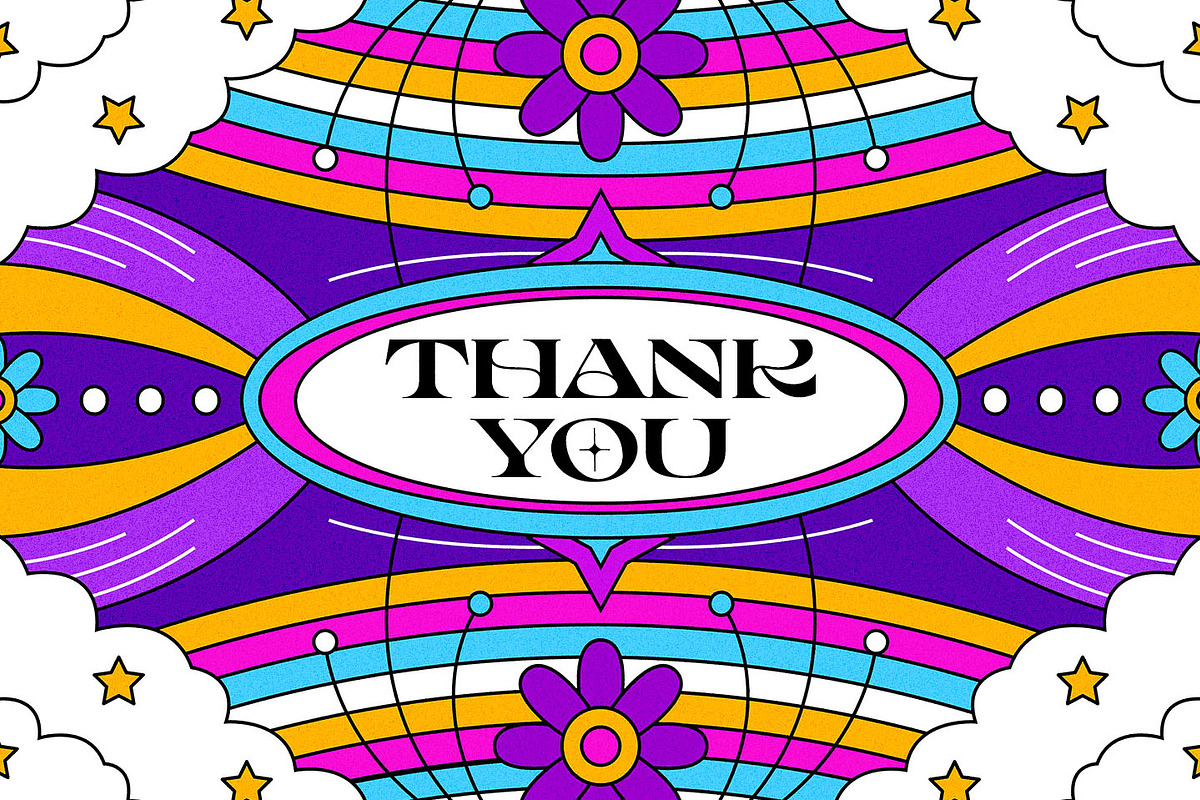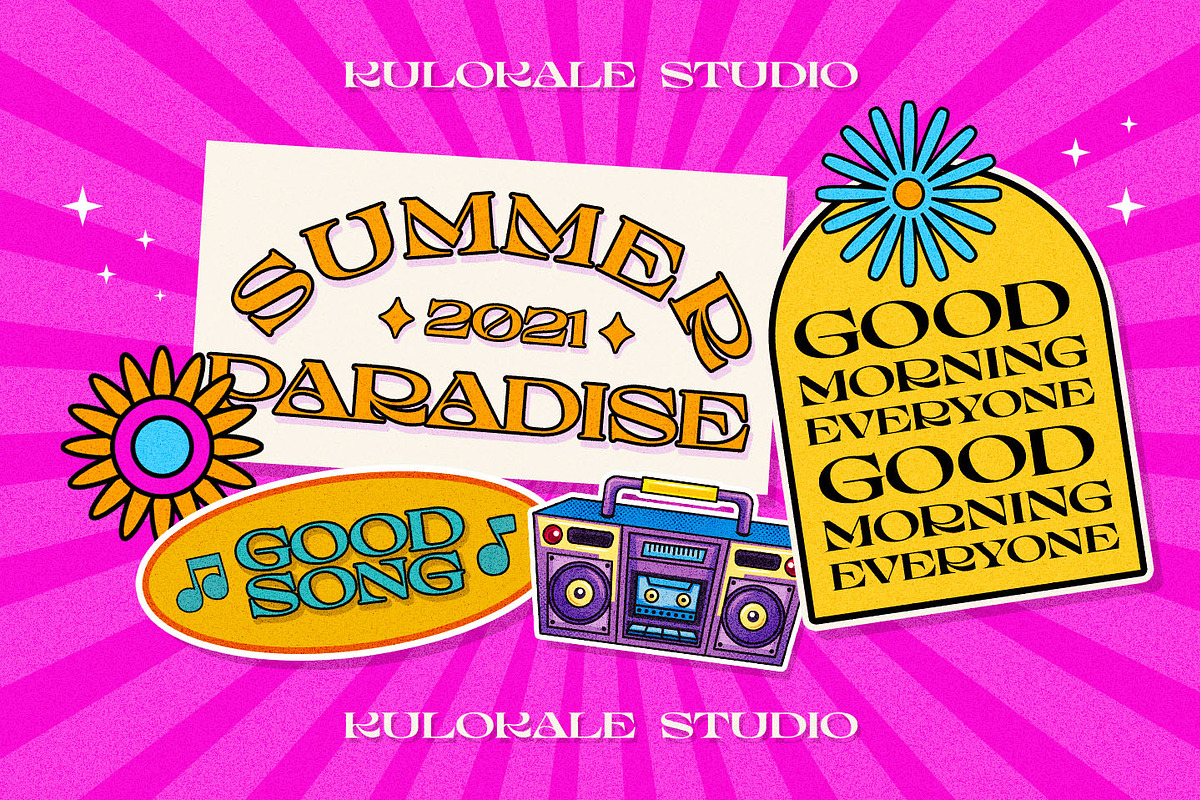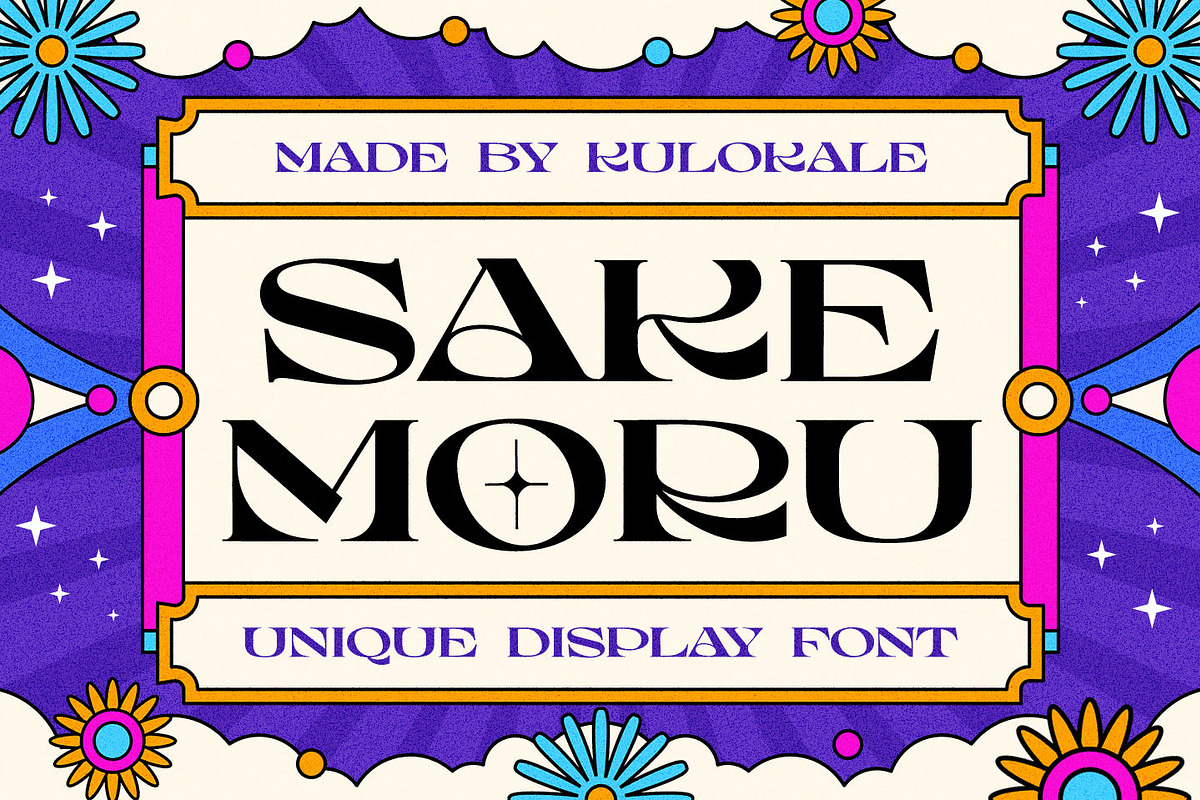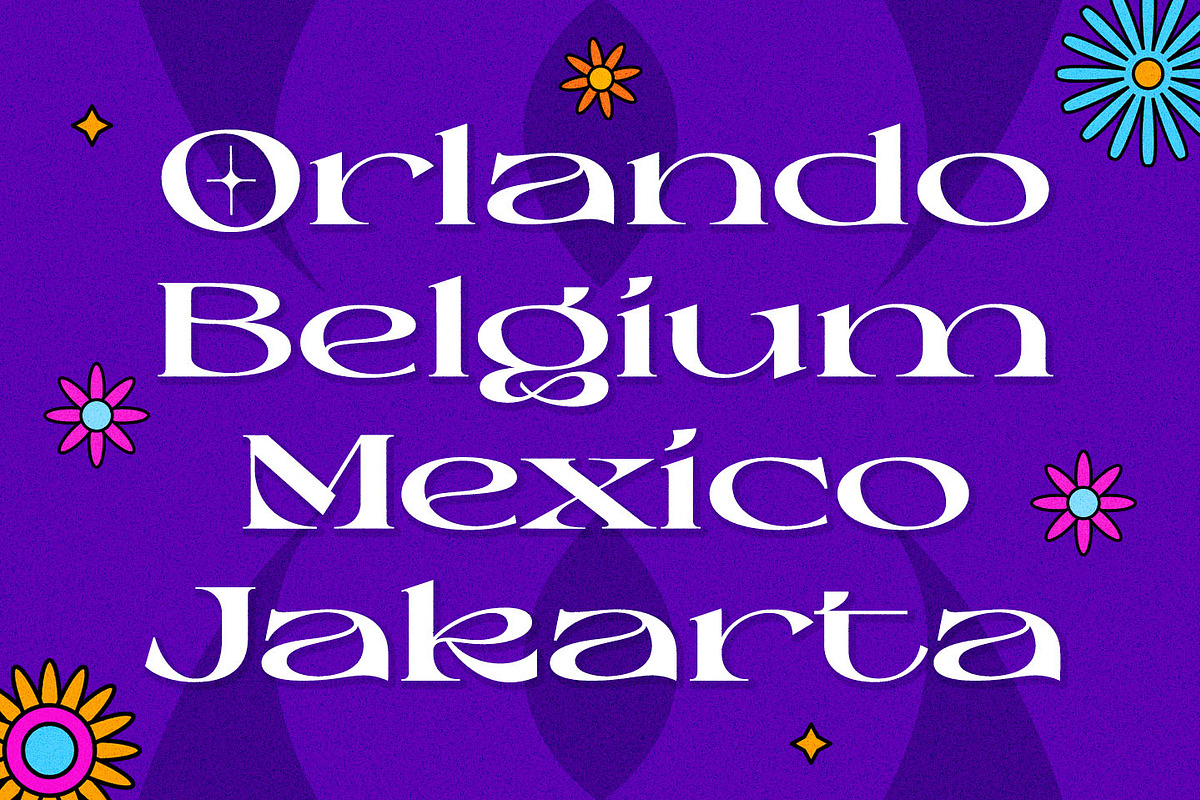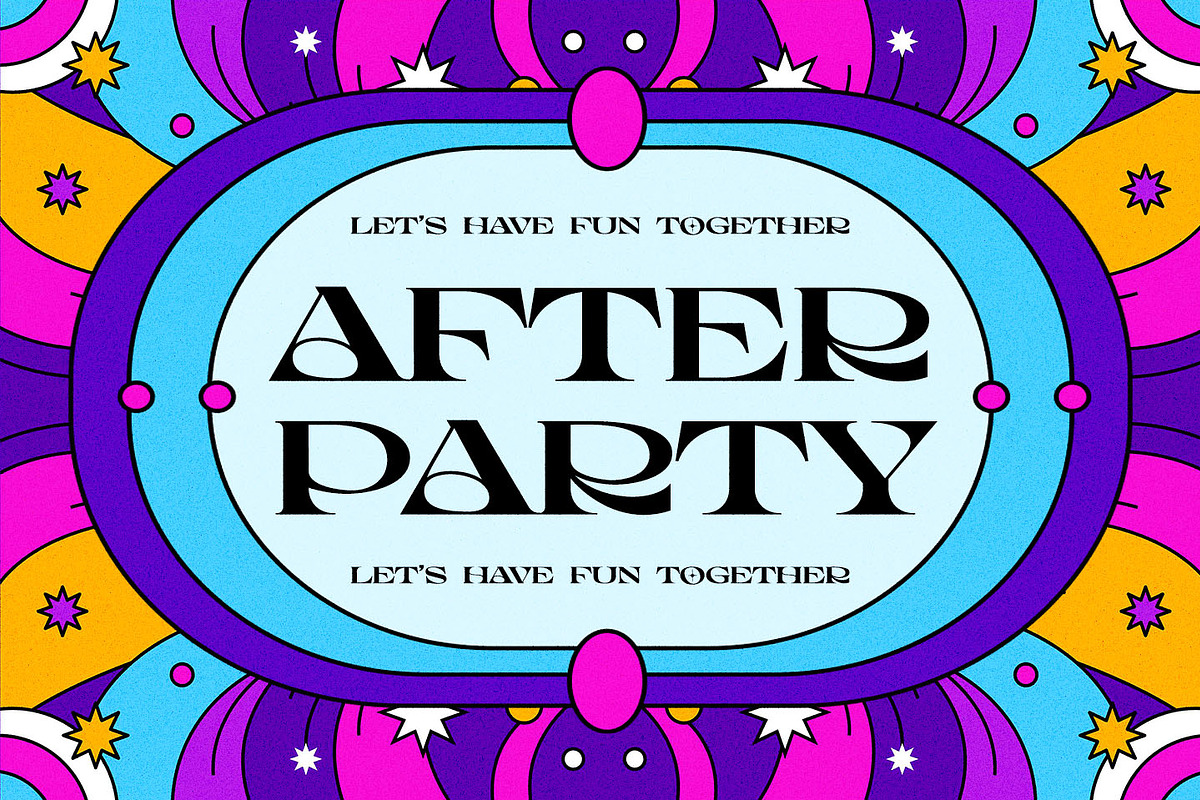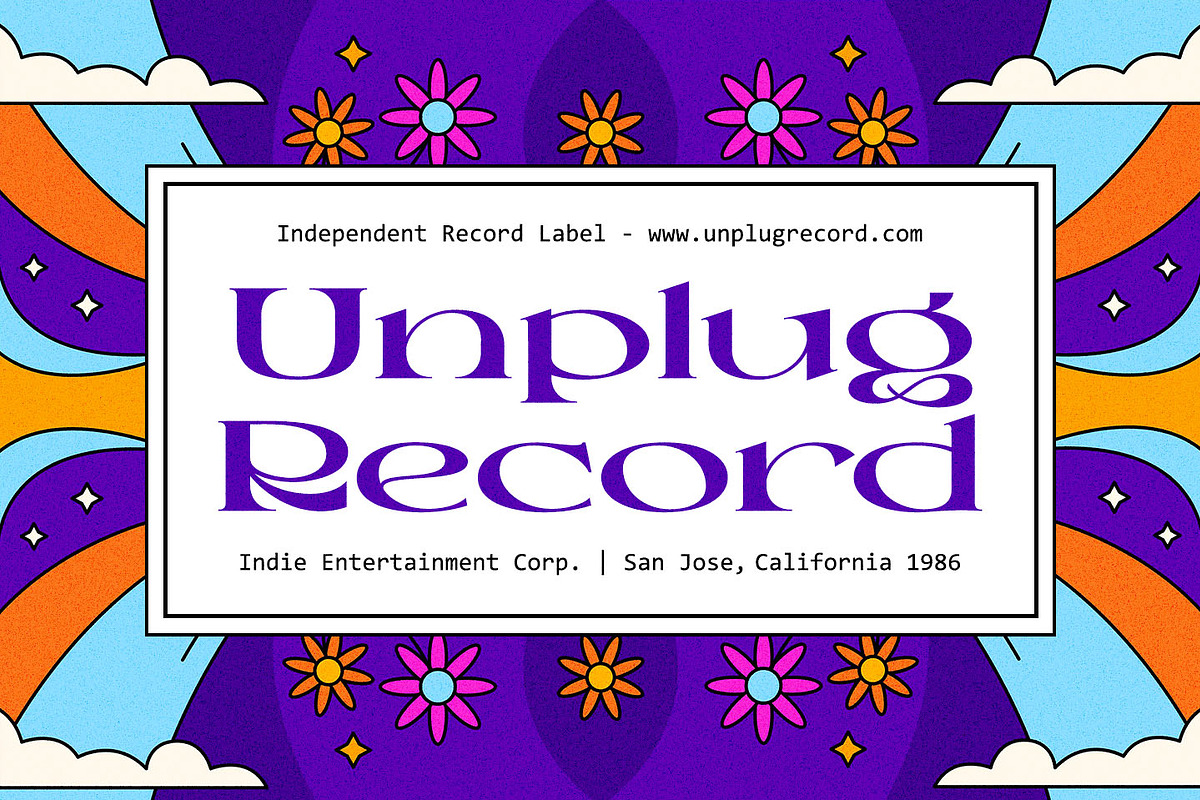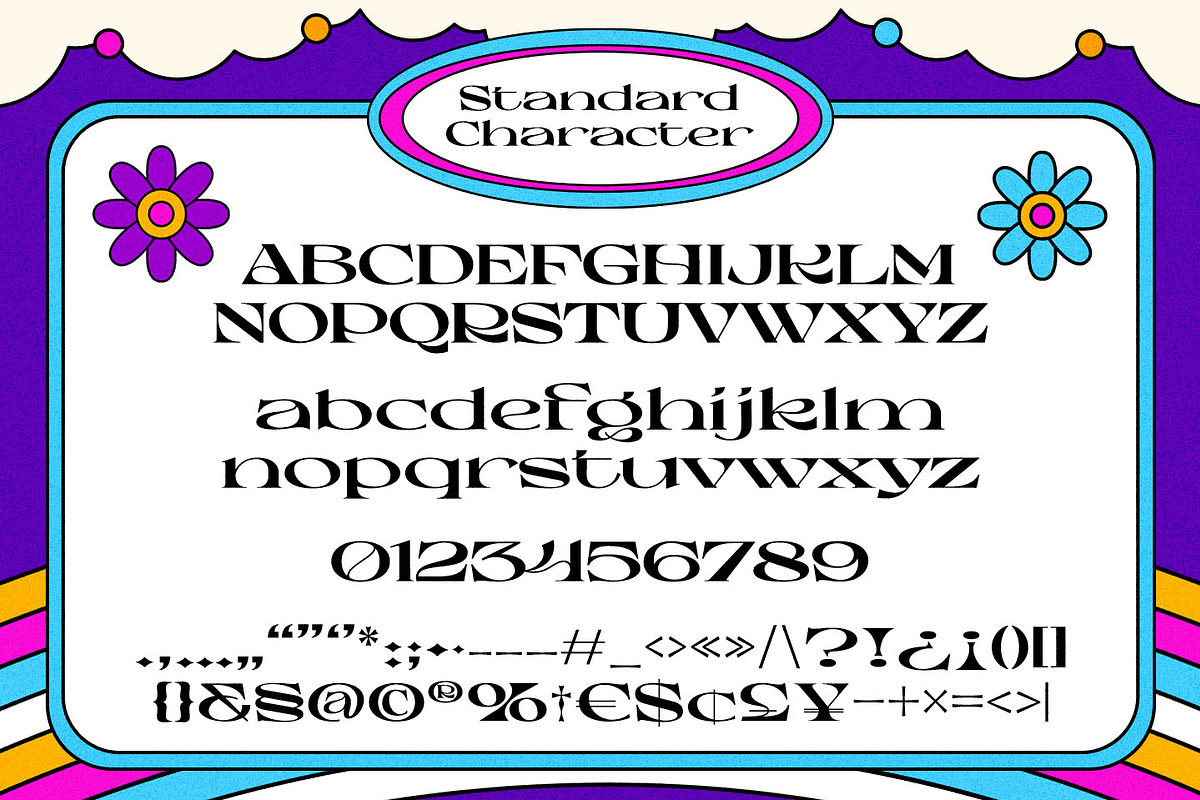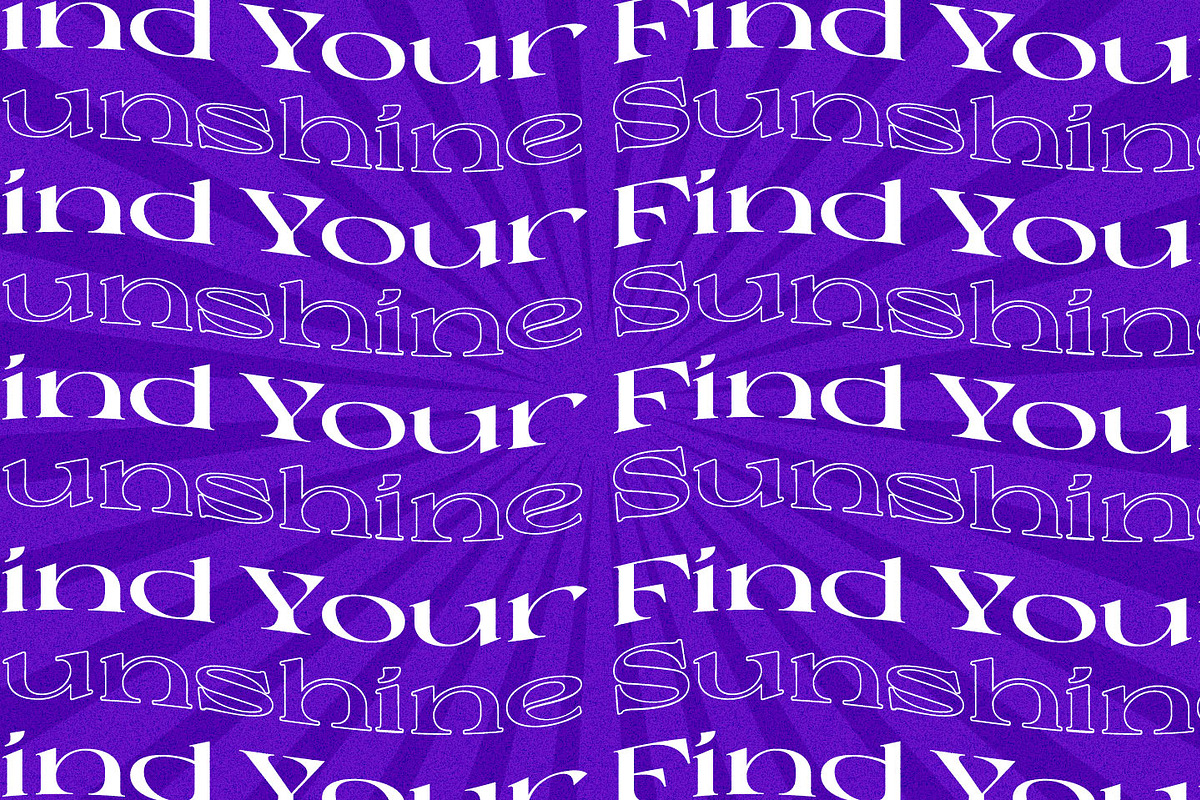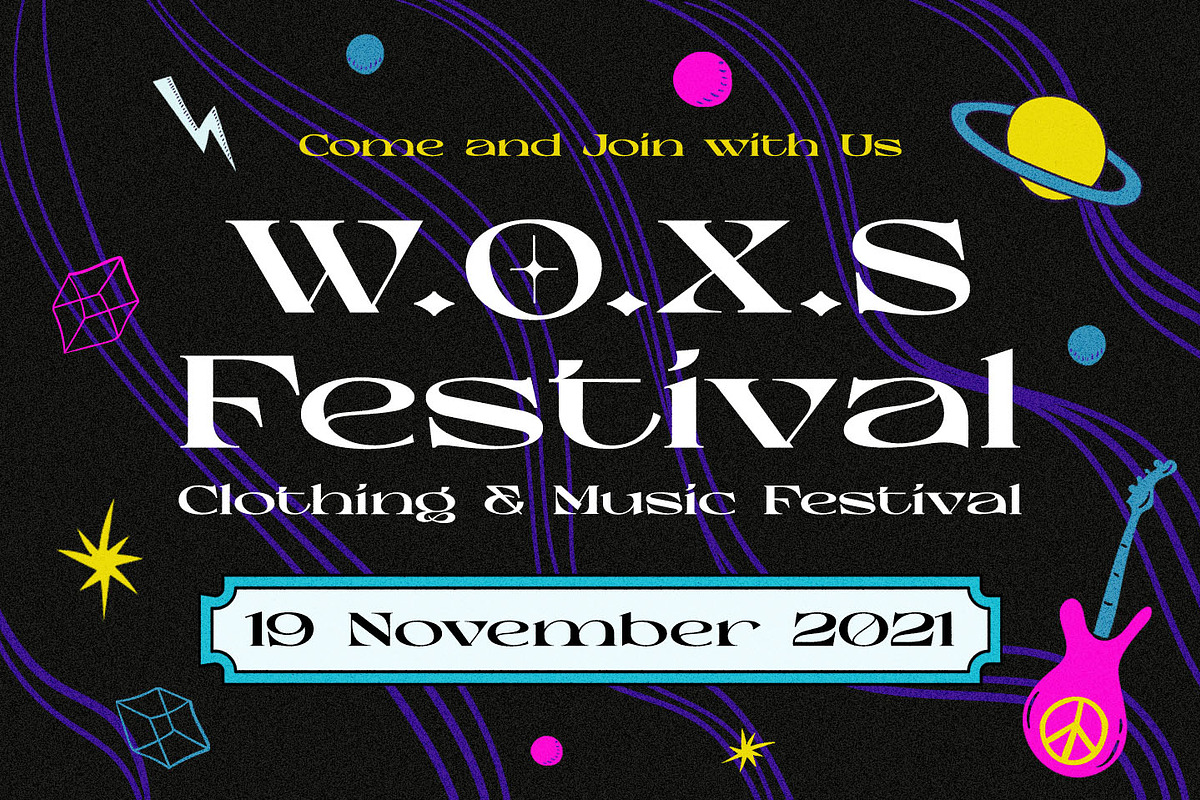
Sake Moru Display Font
Sake Moru is a experimental display font. Sake Moru is well-suited for advertising, branding, logotypes, packaging, titles, headlines and editorial design. This font comes in two styles, Regular and Outline Version.